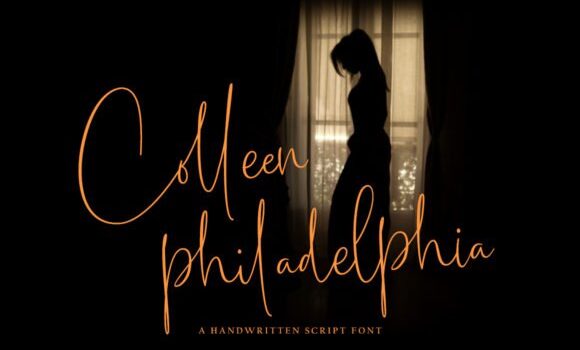
Colleen Philadelphia Font – Free Download Introduction to Colleen Philadelphia Font Colleen Philadelphia is a stunningly unique handwritten font with a beautiful feel. 📸 Preview Gallery 6 images 📌 Product Name Colleen Philadelphia Font 👤 Author Khalidin.Ink 📂 Category Explore